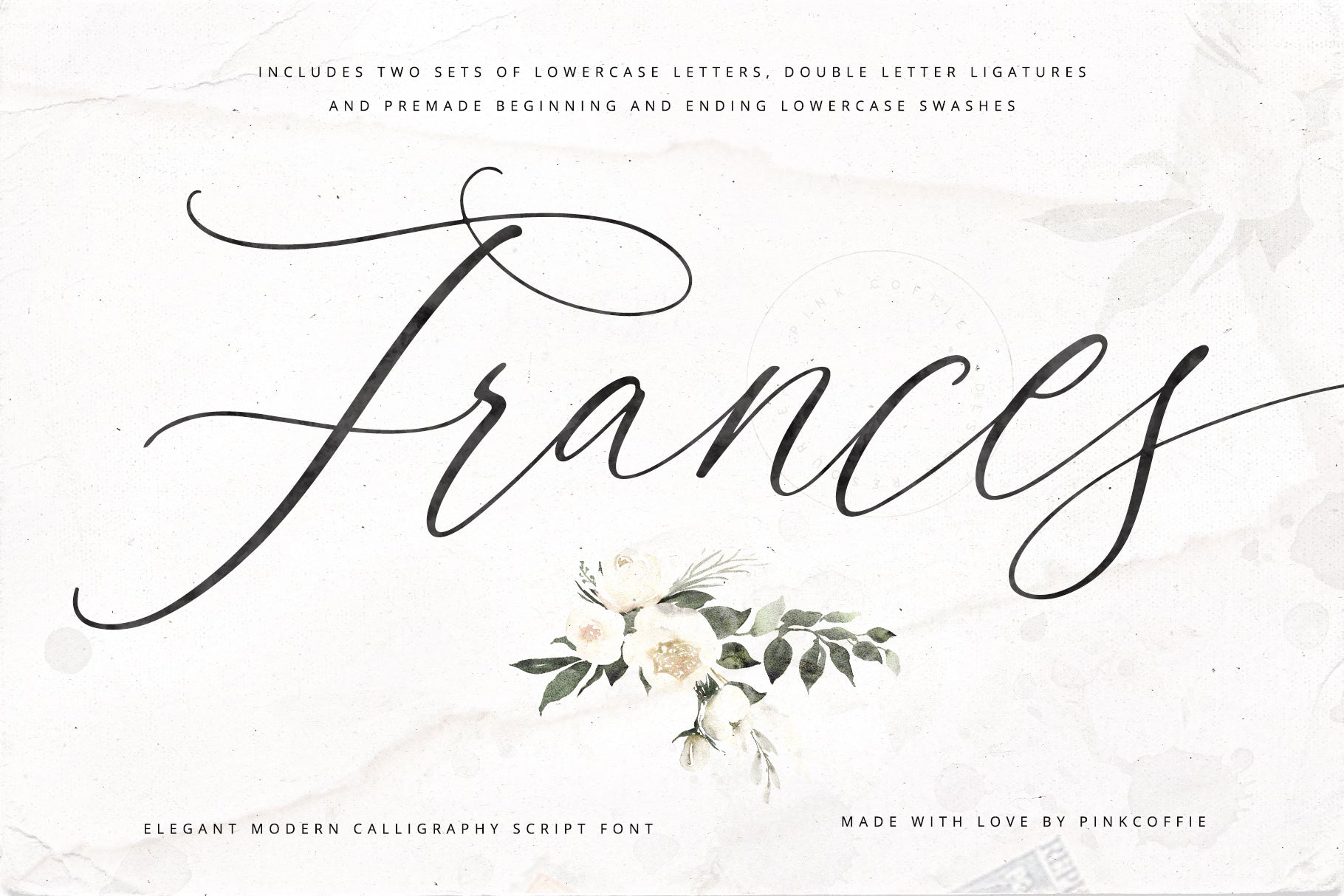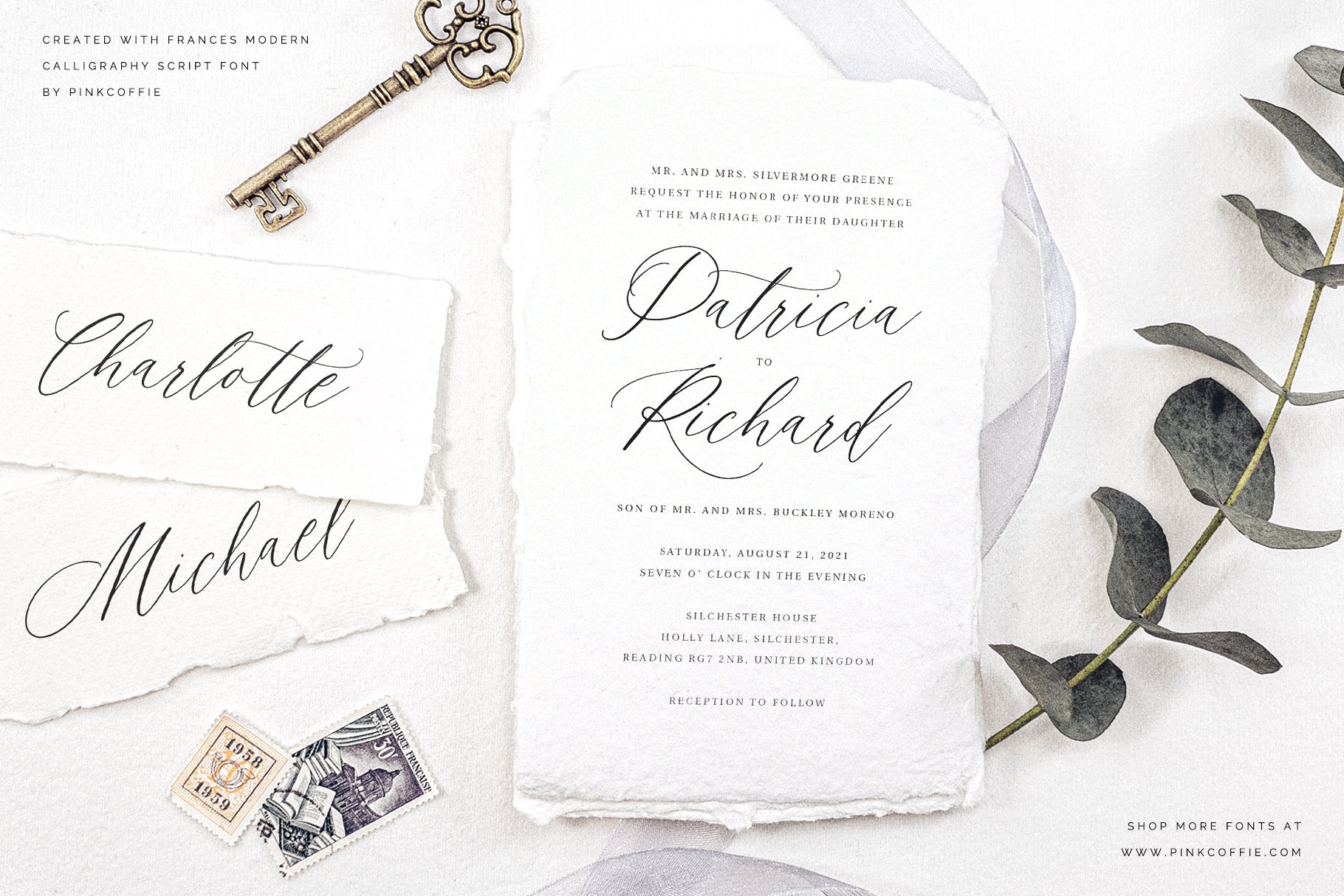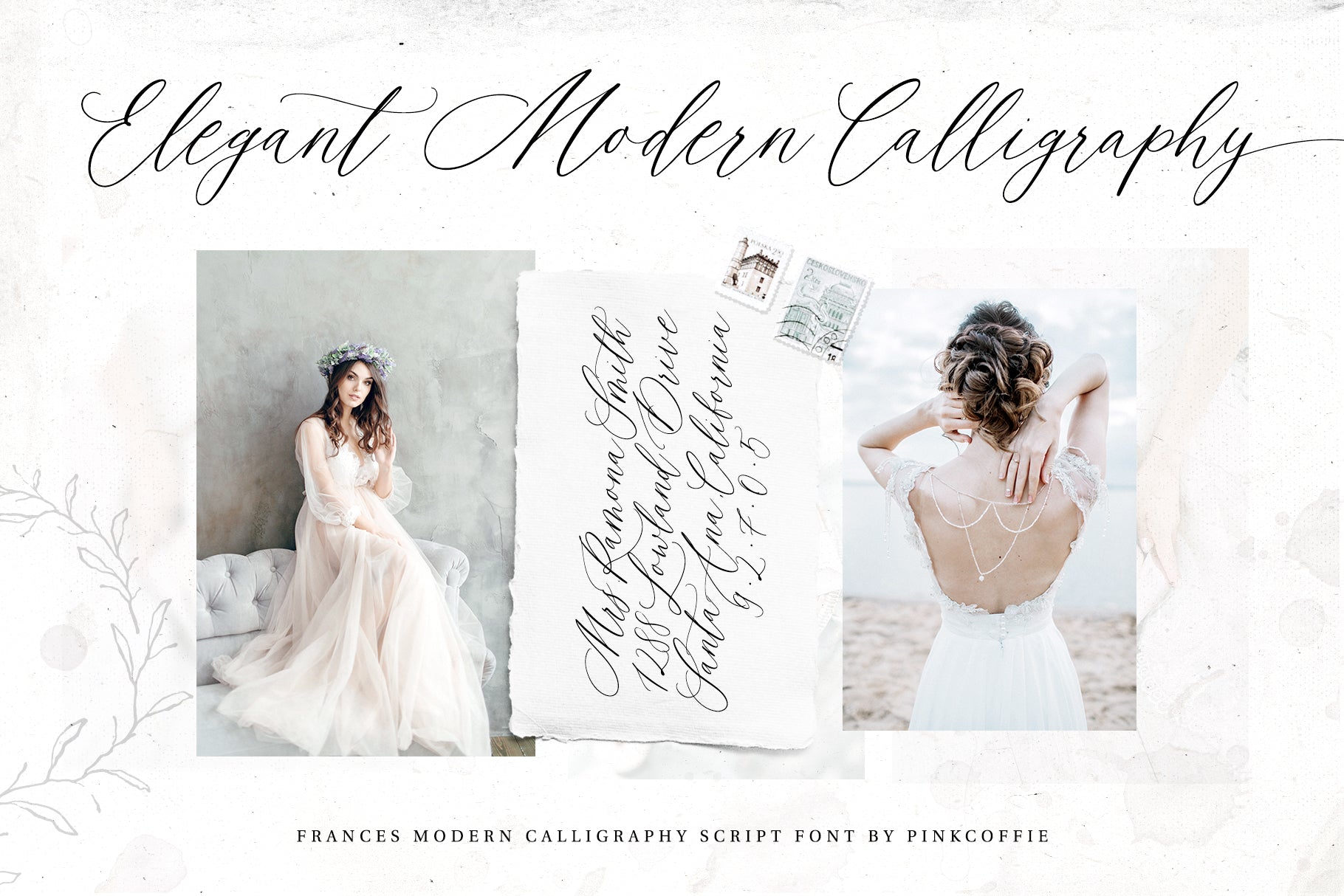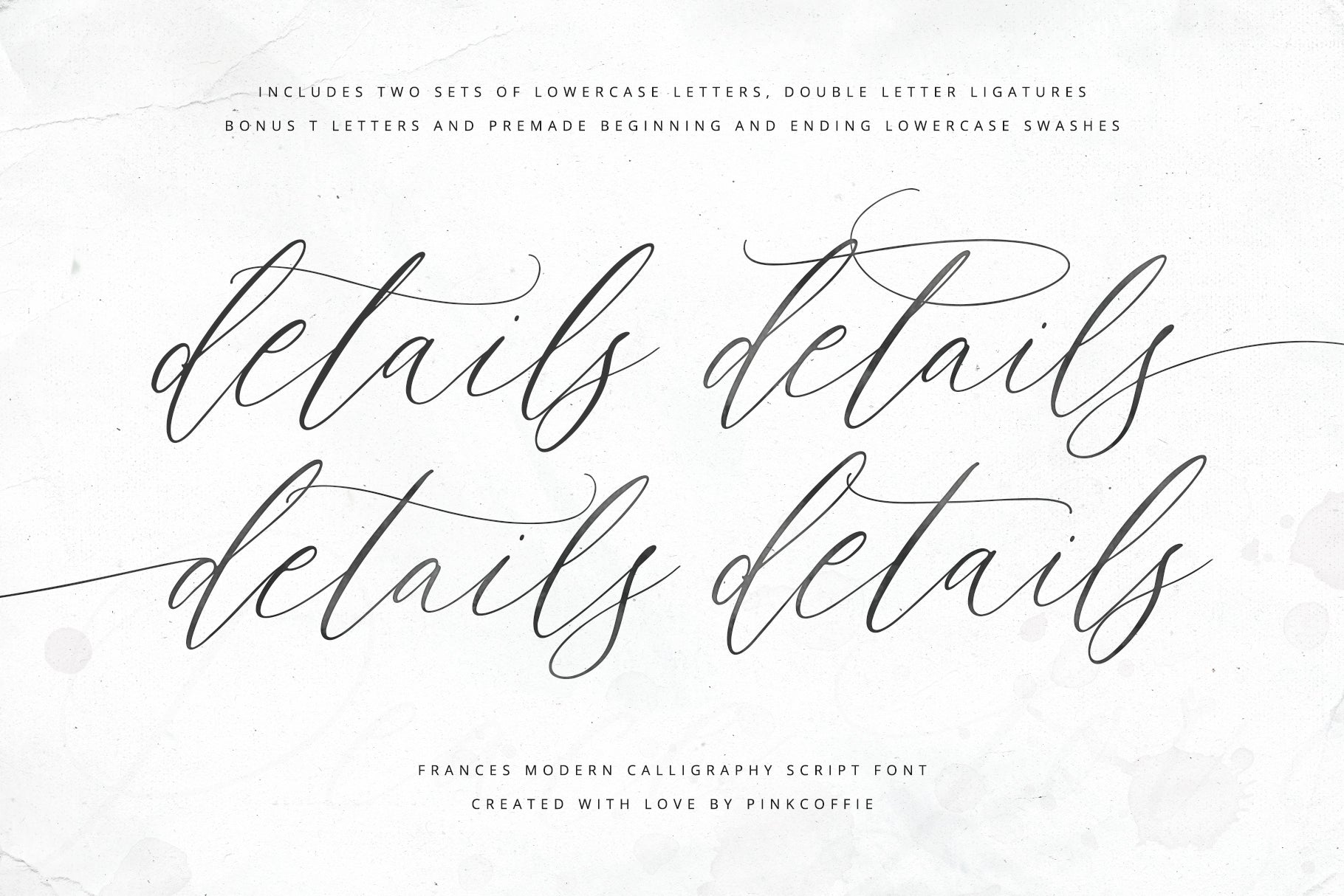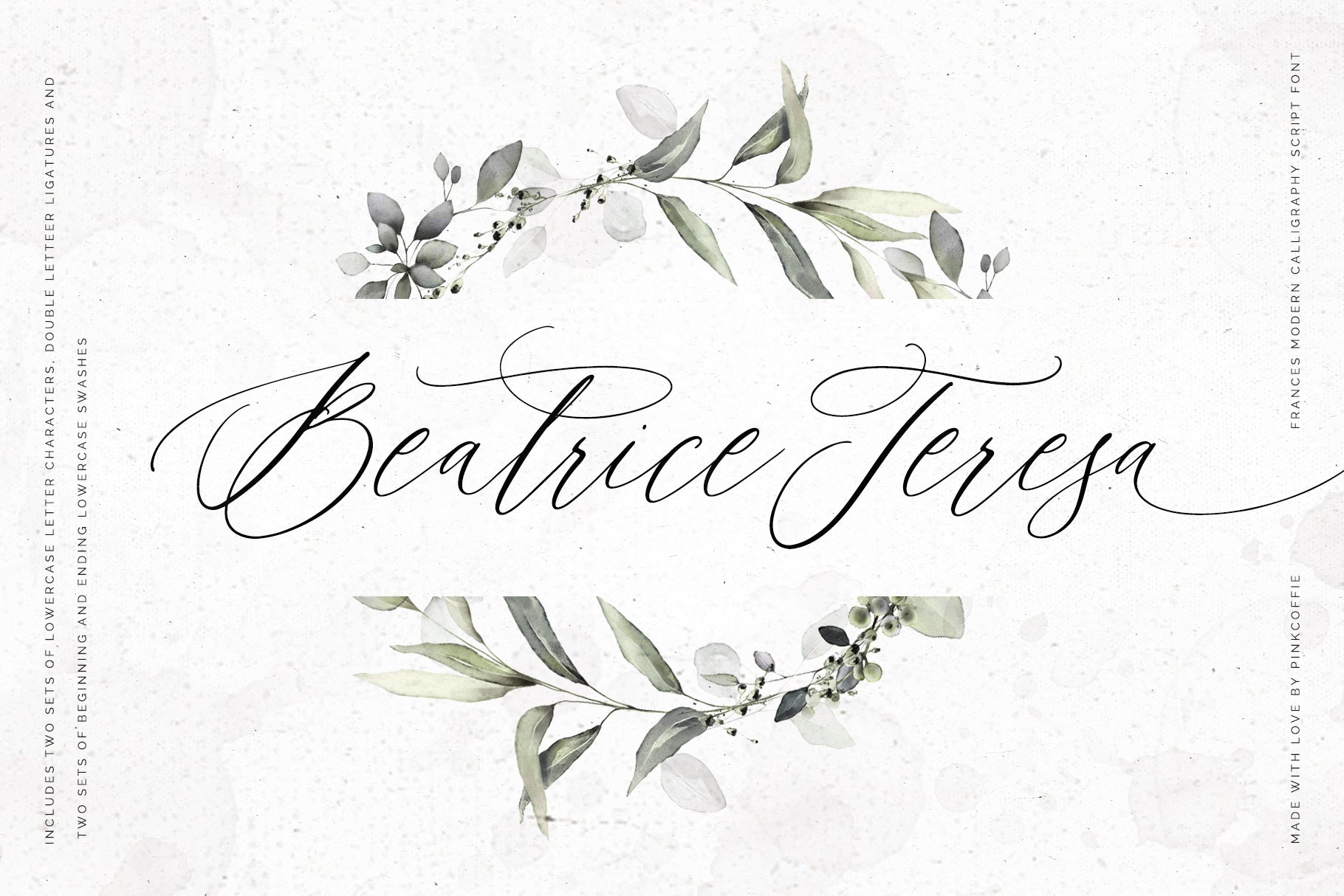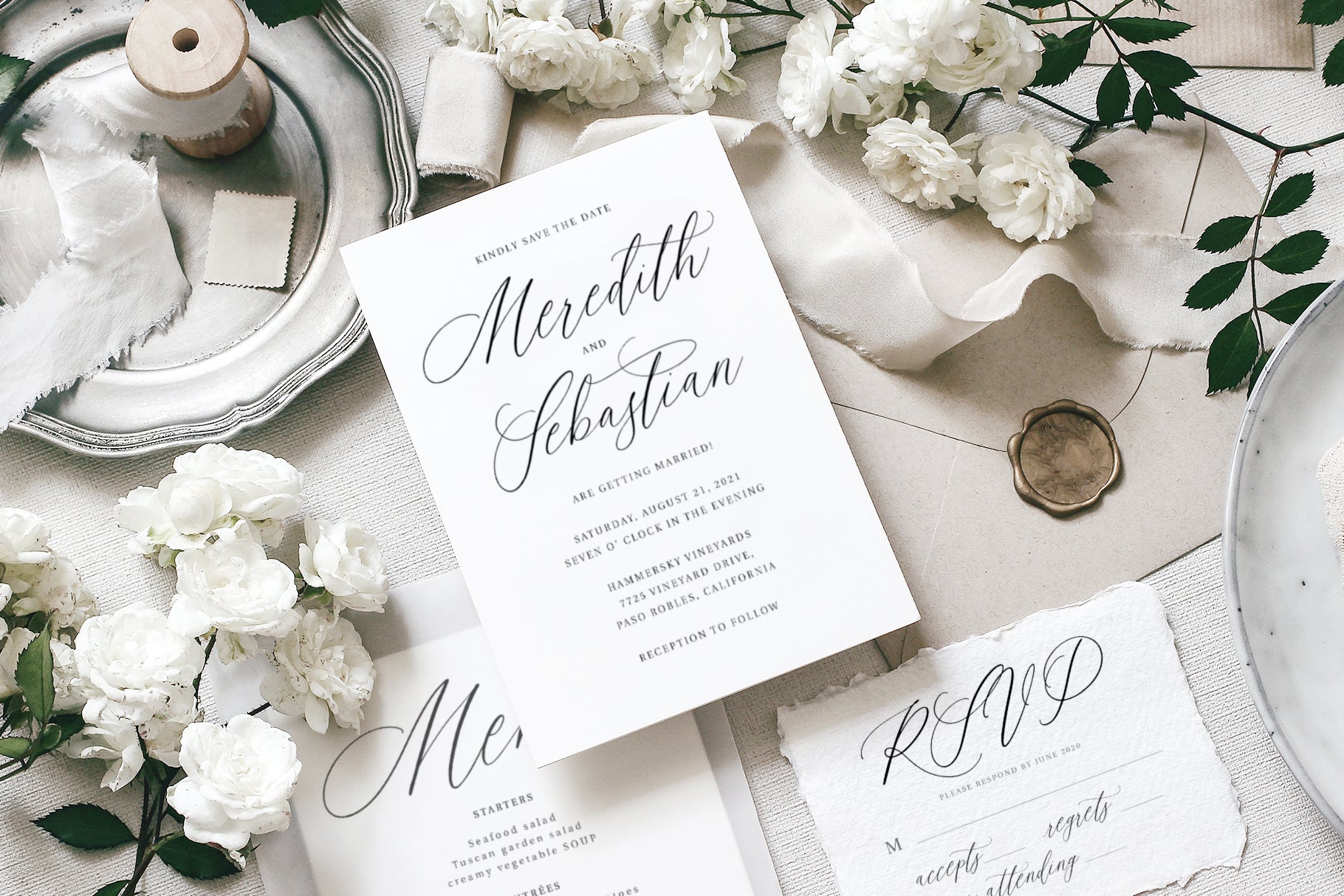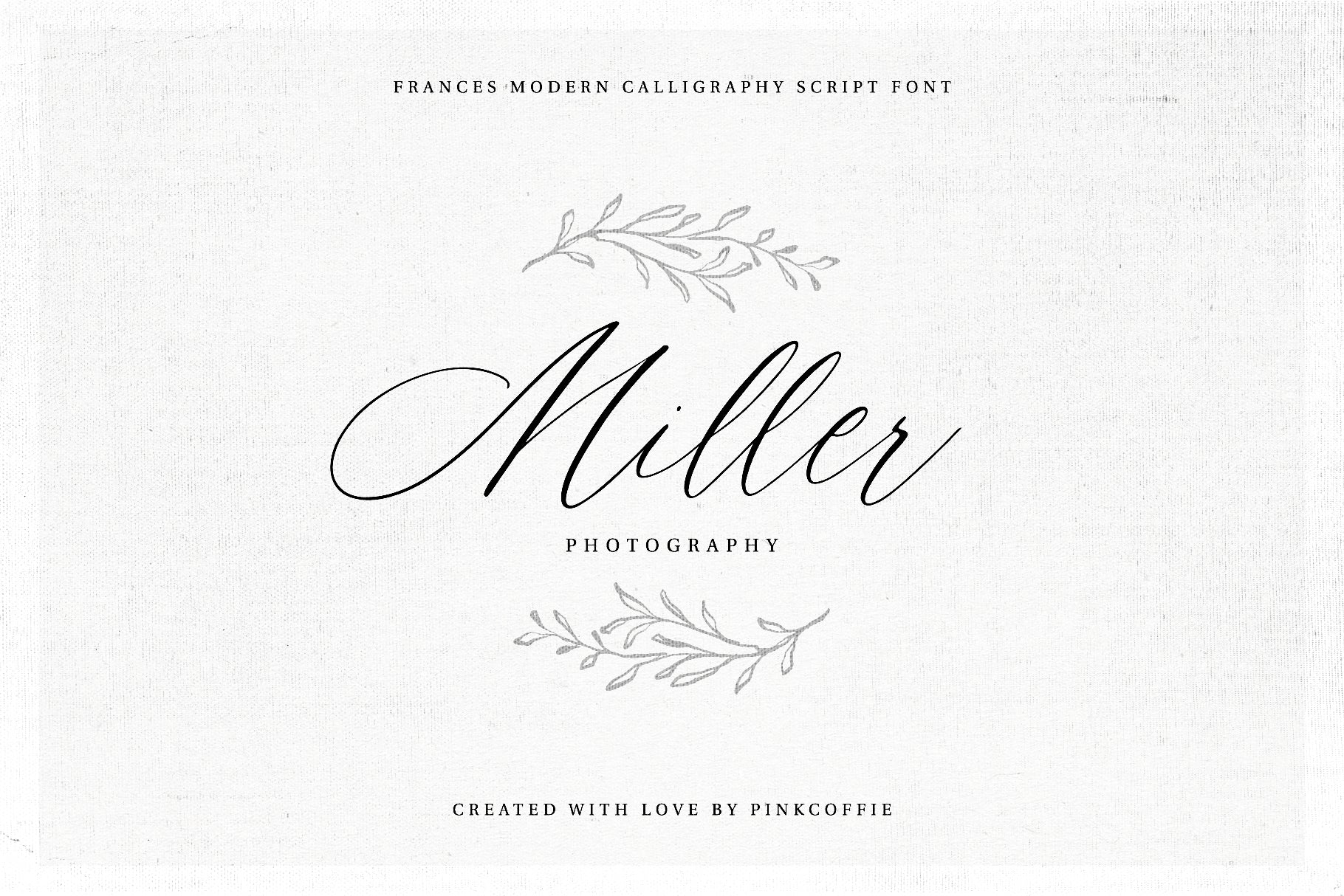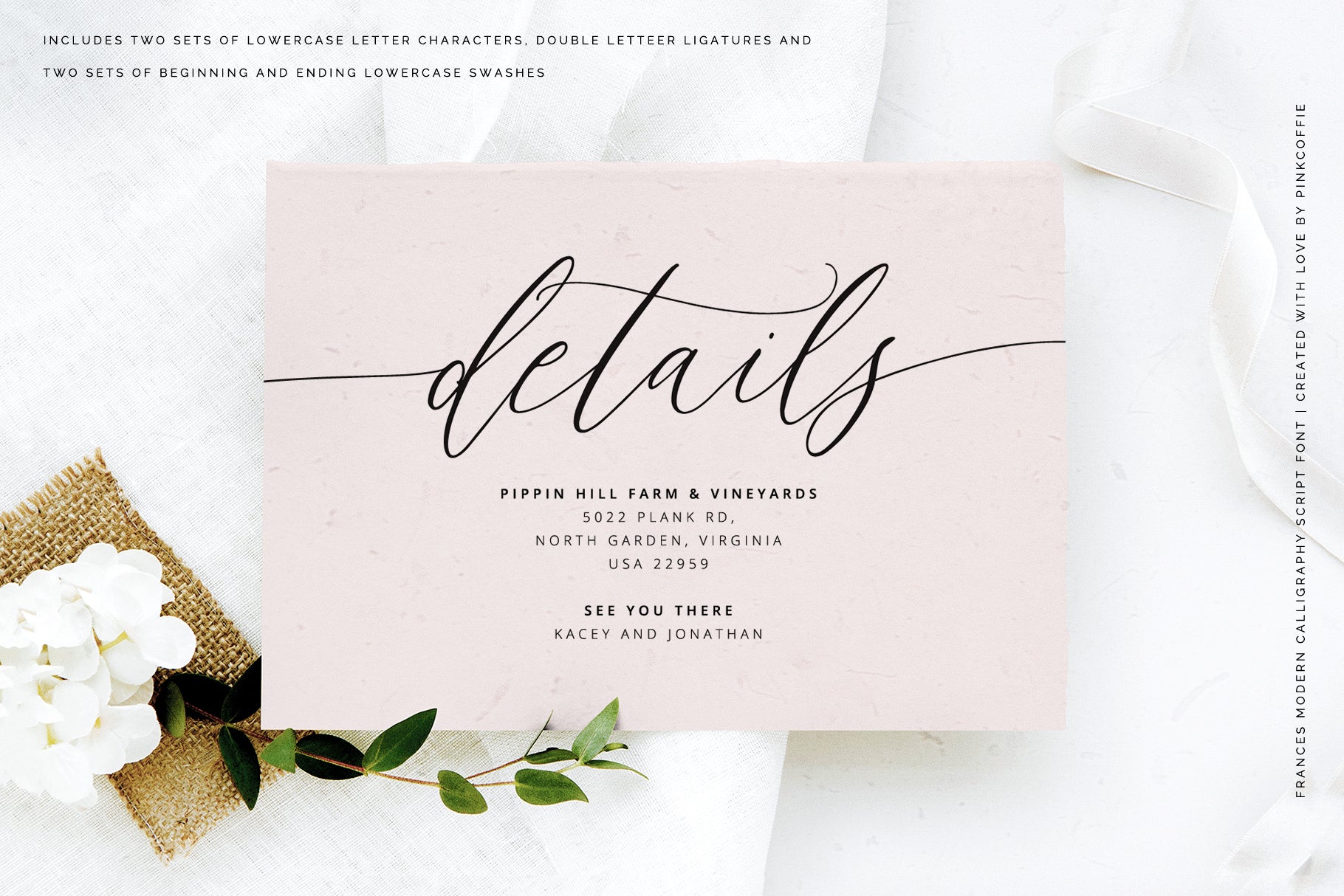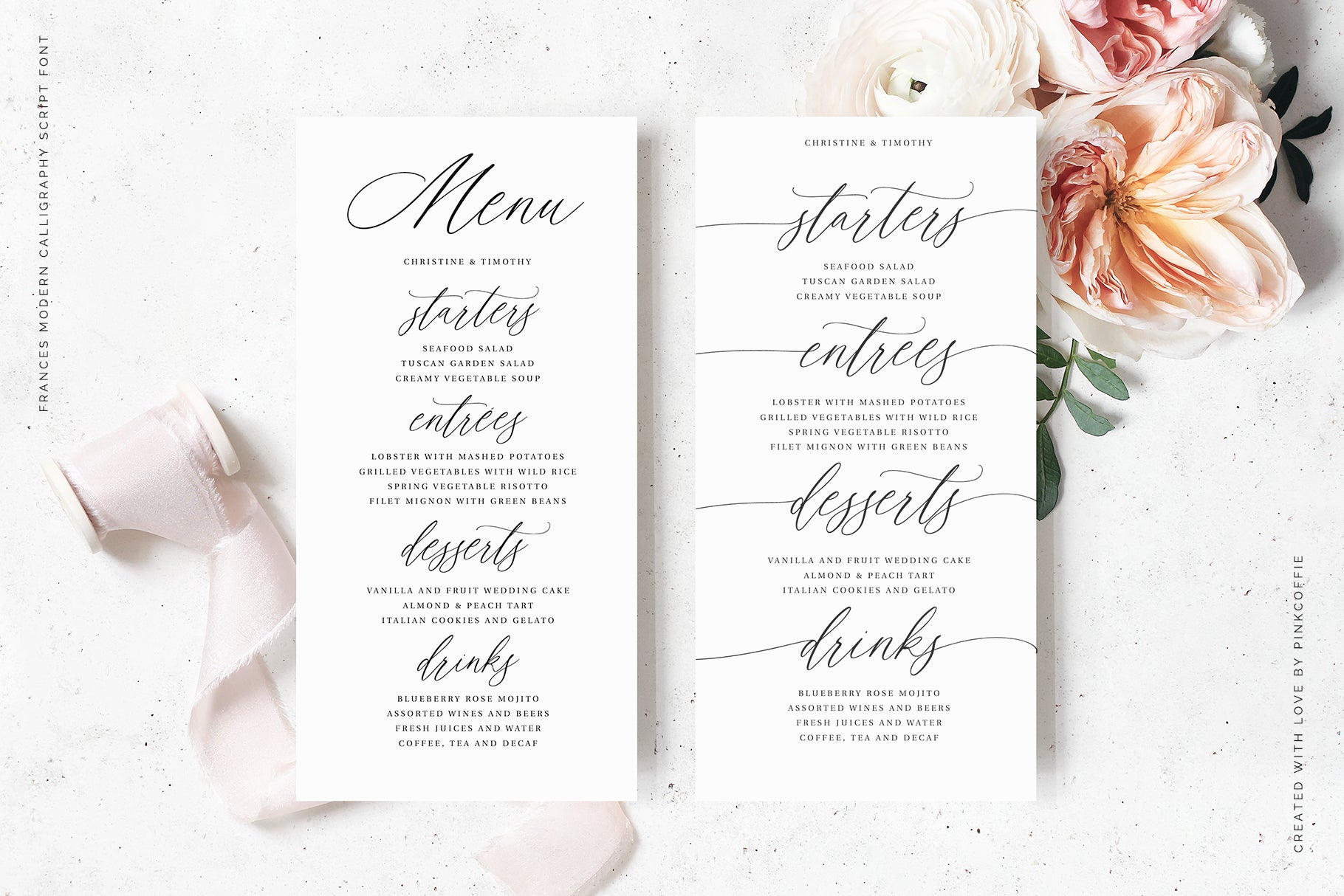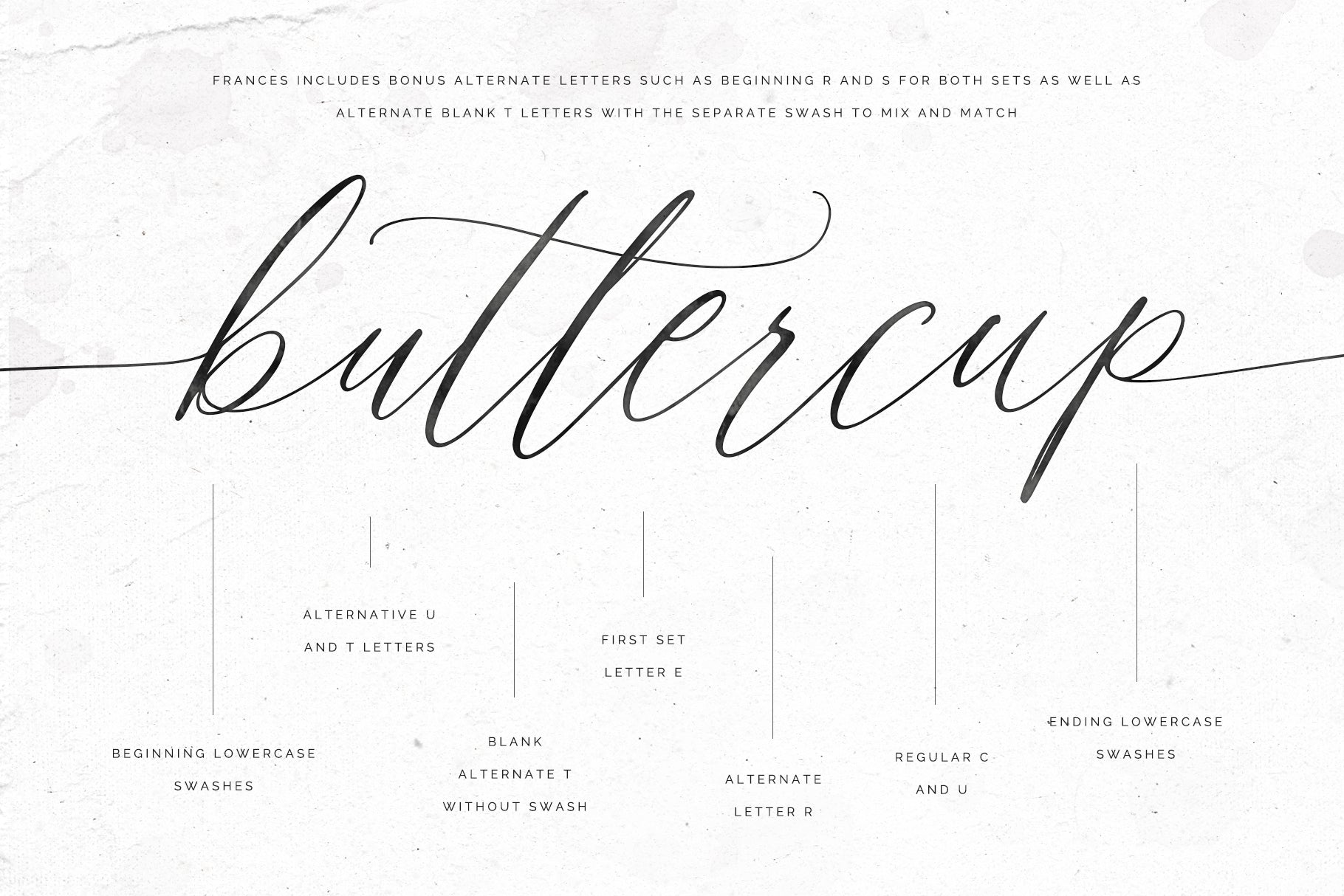
Say hello to Frances - a timeless, elegant, and romantic modern calligraphy script font featuring not one, but two lowercase letter sets, a whole set of double-letter ligatures, bonus alternates for t, r, and s letters, and two sets of gorgeous pre-made beginning and ending swashes to mix and match.
Designed to encapsulate the natural modern calligraphy look, this feminine script font is an exquisite choice for timeless wedding stationery, feminine branding, photography logos, refined stationery, wedding websites, cute greeting cards, luxurious planners, eye-catching social media posts, high-end packaging, and much much more!